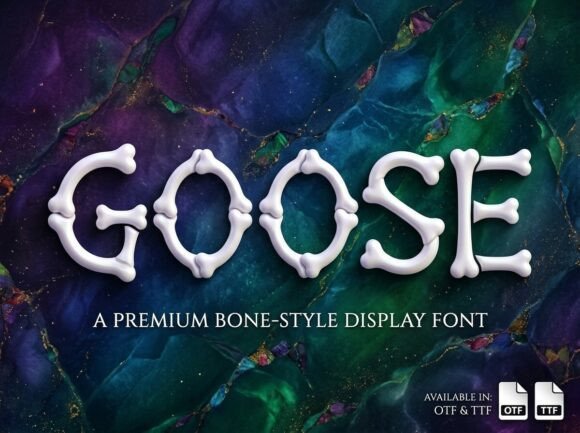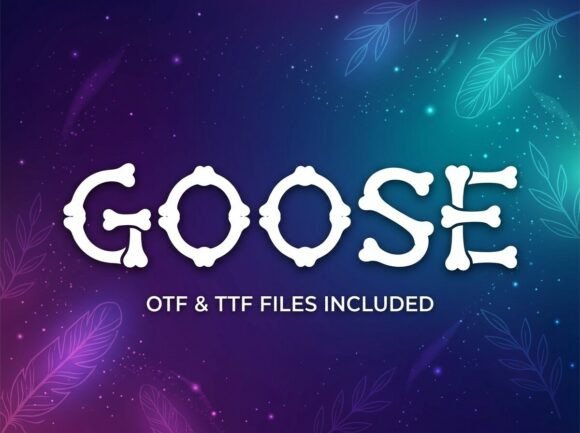
Introduction to Goose Font
Unearth something unique with Goose, a skeletal display typeface that captures a “primitive-and-playful” soul.
This font features bold, rhythmic letterforms meticulously constructed from anatomical bone shapes and joint-like structures With its sturdy structural weight and quirky archaeological personality, Goose is the premier choice for independent natural history museum branding, dog boutique logos, spooky-themed event invitations, and high-impact “prehistoric-and-fun” social media headers.
Key Features of Goose Font
Why Choose Goose Font?